Give any Font a stone-faced look in cut vinyl.
This next demo is a clever little cut vinyl text effect for you to try in the shop. Not only can it be applied to countless typefaces but you get to choose the level of detail and ultimately create your own personal style that is guaranteed to be different to everyone else.
It’s called Rocky because loos like a heavily pitted stone face and, depending on the colours used and the level of detail employed, can suggest either a rugged text or a subtle texture applied to the face of the text.
The images accompanying our step-by-step notes use coloured elements throughout to help you follow the process (e.g. the orange-coloured ‘J’ seen at the end of the procedure is the same orange ‘J’ shown at the beginning).
Be assured that whilst the process may seem difficult at first, repeating it a few times will reveal just how straightforward it really is. So, have fun with this fun cut vinyl text effect – which can also be recreated digitally.
We’ve chosen the letter ‘J’ in a font called ‘Aardvark’ and coloured it Orange. Using a ‘freehand’ draw function we make a ragged shape that roughly follows the letter’s outline. Weld these two items together using an AND weld function (one that leaves those parts common to both shapes).
TIP: Keep a copy of the original letter ‘J’ and save it to one side for later.
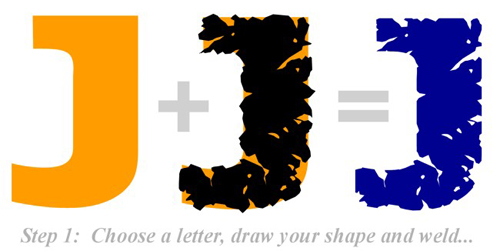
Take this new shape and make an ‘in-line’ copy ( a slightly smaller copy) in a different colour.
TIP: Once again, keep a copy of the original piece (shown in blue) to one side.
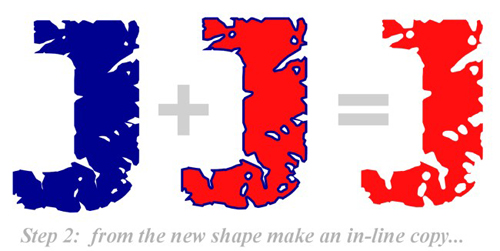
Make a duplicate of this in-line copy. Place one directly over the other and then move one a small distance in any direction. Weld the two using an XOR weld function (one that leaves those areas not common to both) and then colour the remaining pieces to form two coloured groups. One of these will become the highlights and one the lowlights.
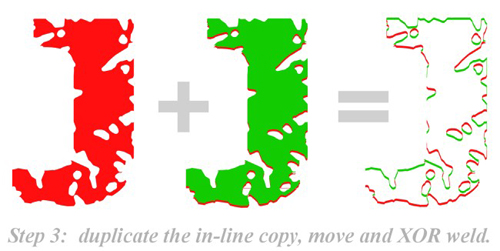
Take the shape created in step 1 (the blue piece) and group it with the newly formed highlights and lowlights – be sure to carefully align all three.
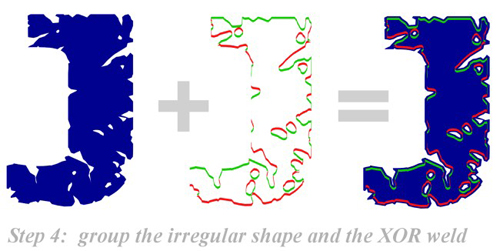
Take the original Orange letter ‘J’ and place it behind this newly formed group taking care to align all of them carefully. It is at this point that you can apply your chosen colours to the various elements of the design. Often the effect is created using three shades of the same colour together with white highlights.
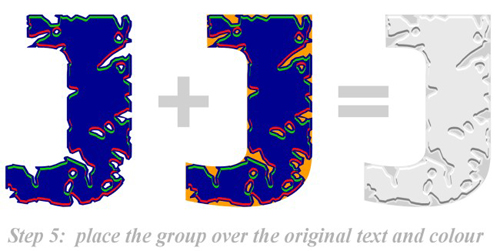
Here’s a close-up of the effect and the colour uses.
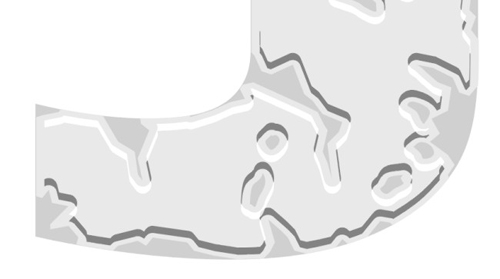
You can simplify the final stage of this effect (and the number of colours used) by NOT using the original letter shape behind. In this example, using white behind, only two other colours are used – mid-grey (with the white highlights welded through it) and a dark grey shadow.
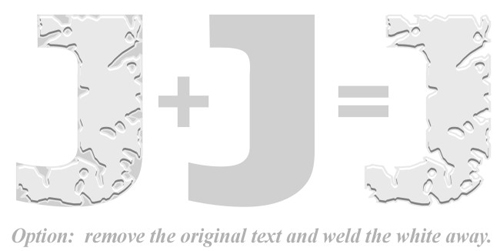
here is that same lesser colour option in a close-up:
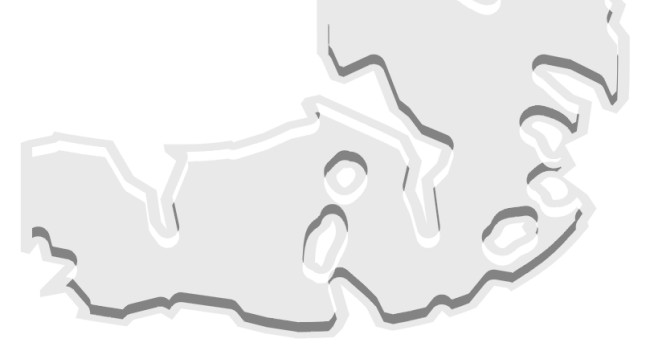
Our last image shows ‘Rocky’ used to great effect in a fun splash…